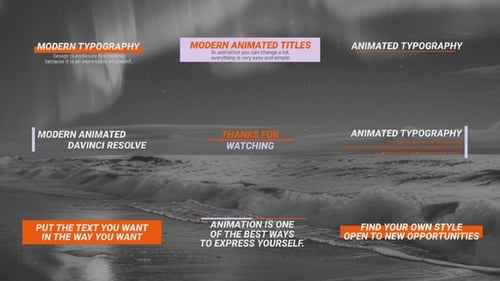
Clean Corporate Animated Typeface
This is an animated typeface. Ideal for your corporate videos.
An automation tool is included so you just have to type your text and apply the typeface\
Custom controls to enable detailed customization